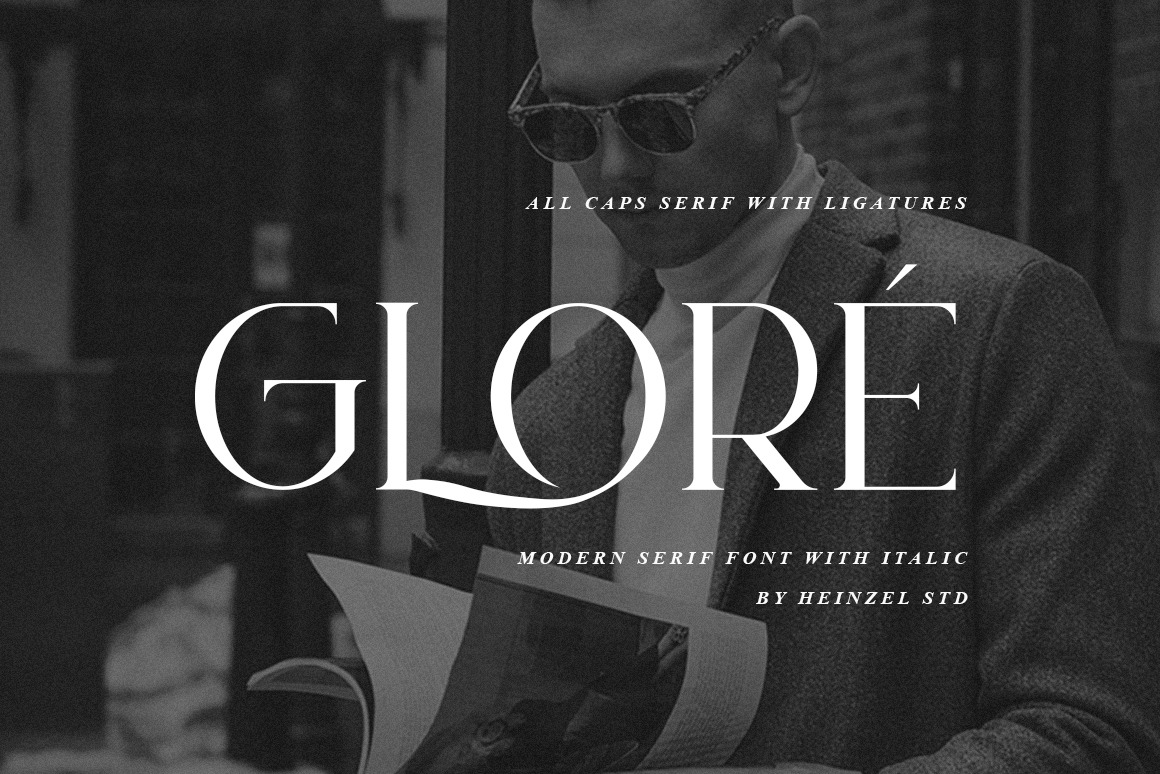
Gloré Modern Ligature Font
Gloré is an elegant and modern serif font. Fall for its ravishing style and use it to create gorgeous wedding invitations, beautiful stationary art, branding, logos, headlines, headings, magazines, eye-catching social media posts, and much more! This font is PUA encoded which means you can access all of the amazing glyphs and ligature with ease!
Gloré Features :
- Gloré Regular and Italic version, serif font all caps, numerals and more punctuations.
- Multilingual support for various languages
- Stunning Ligatures